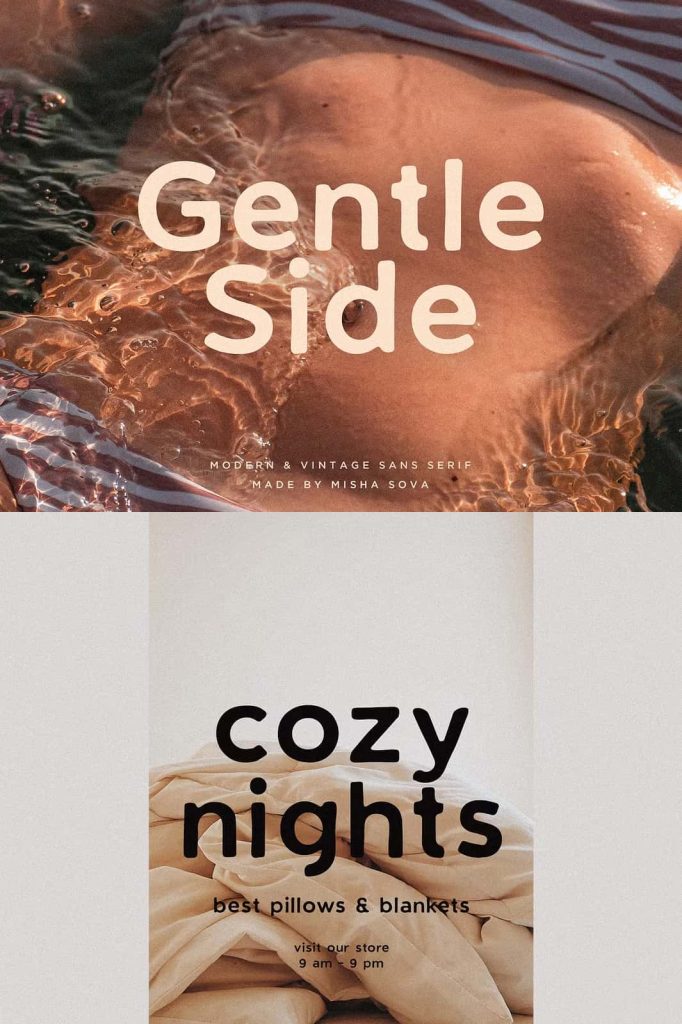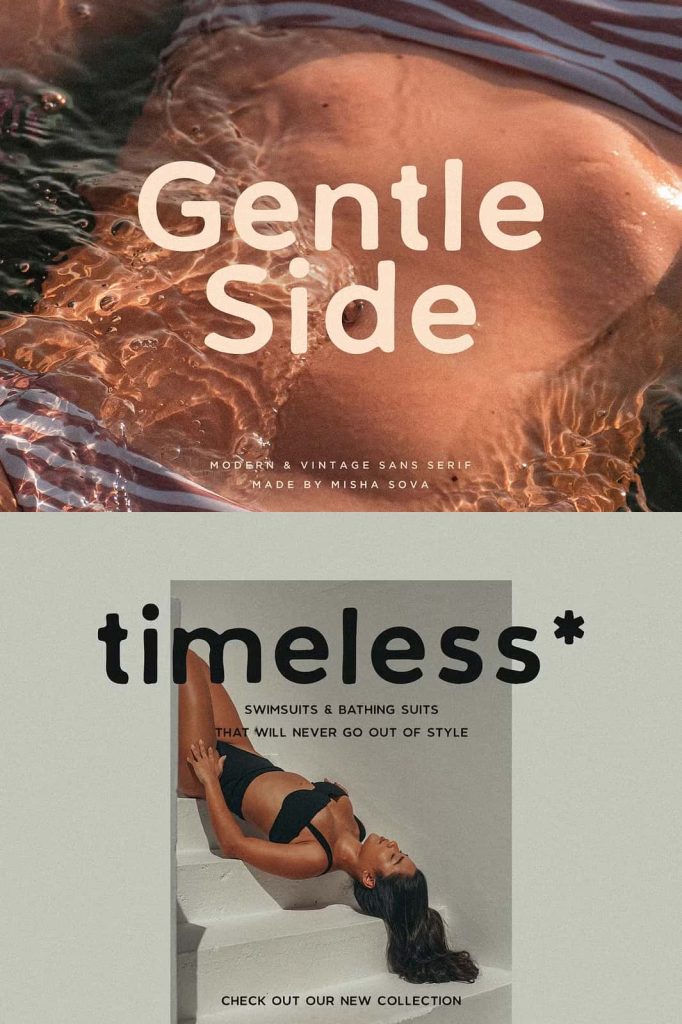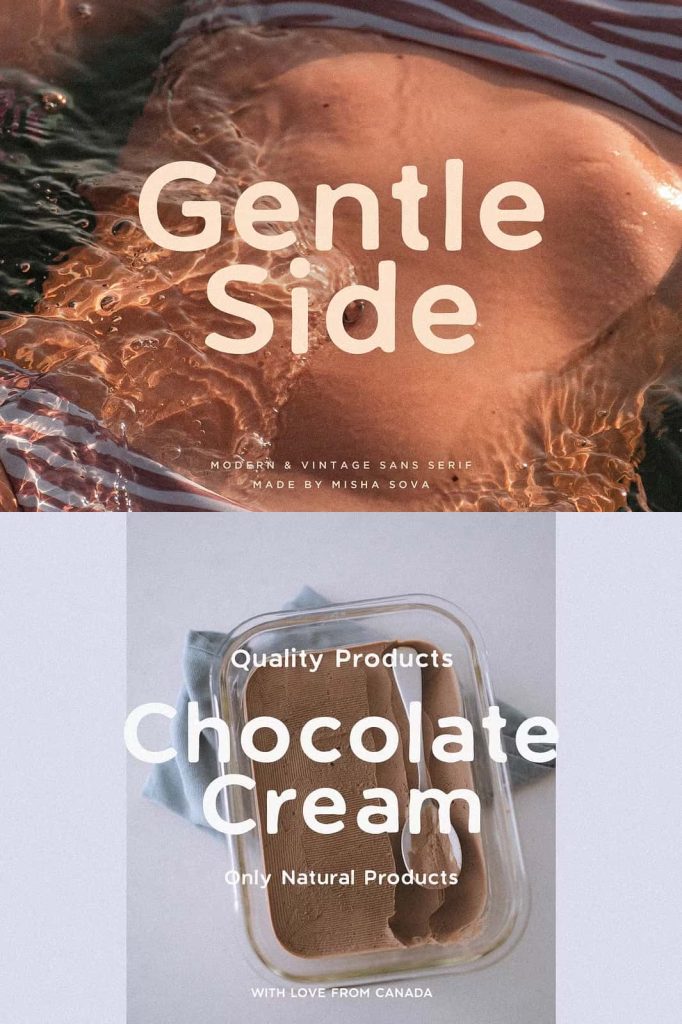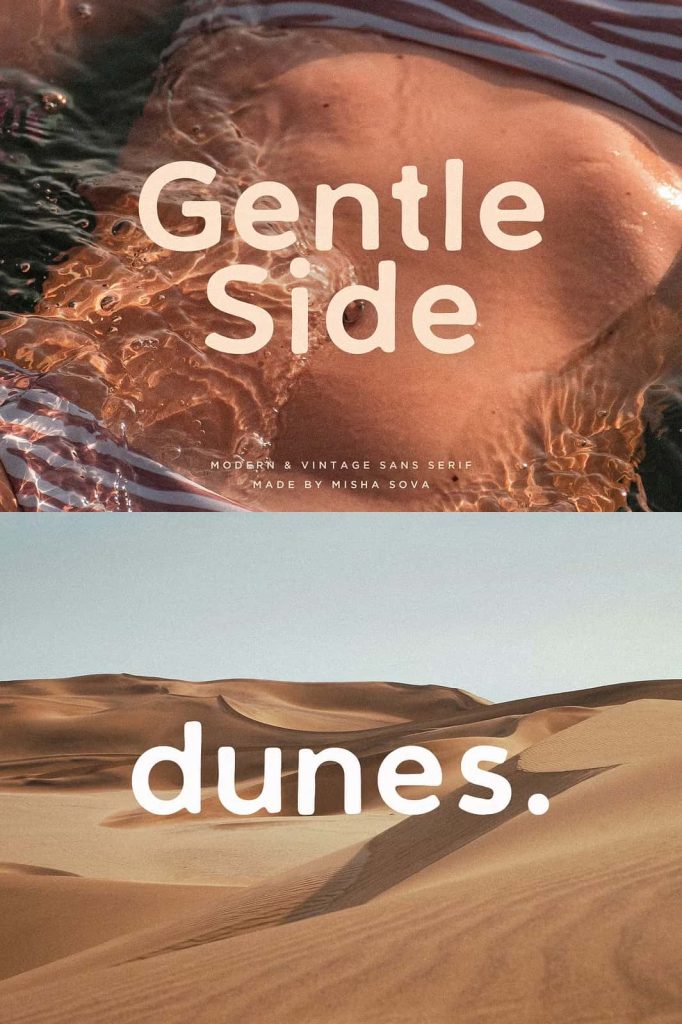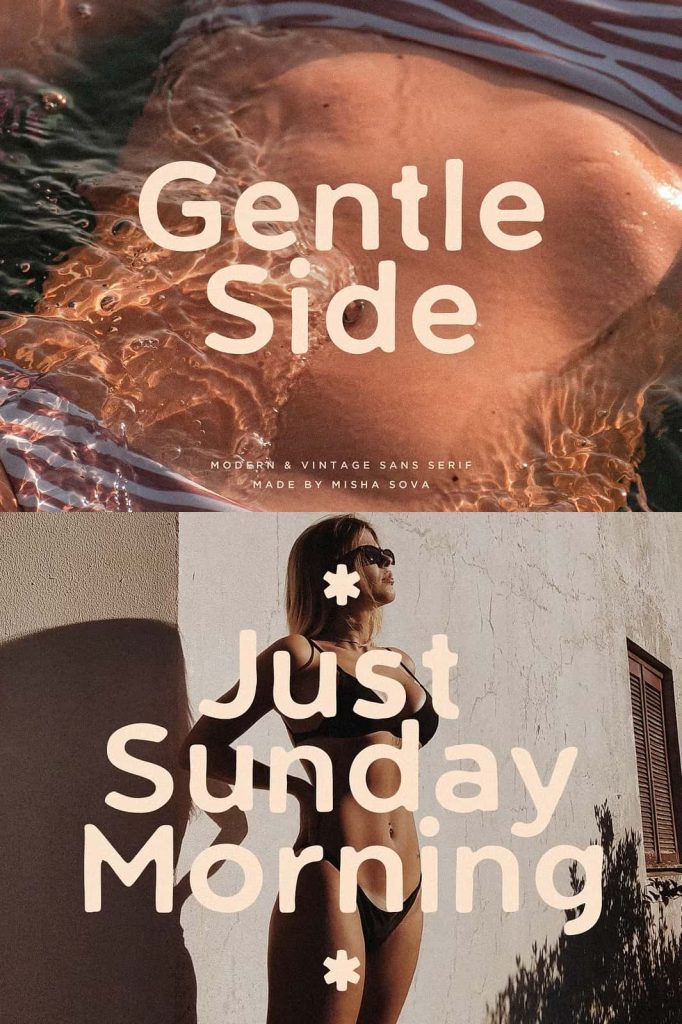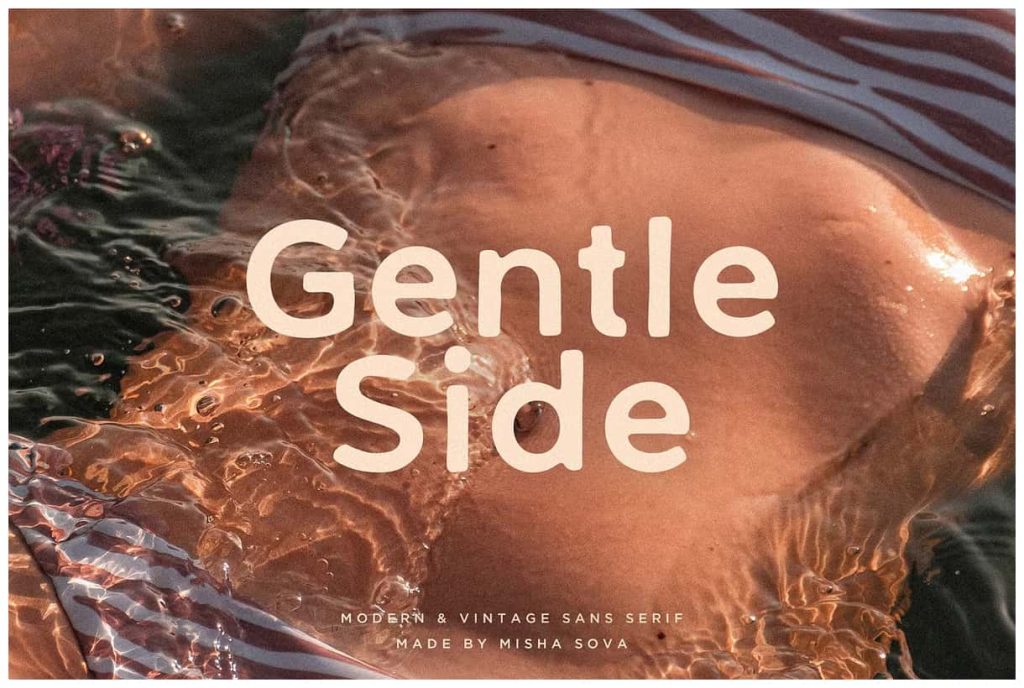
Gentle Side – modern & vintage sansleastedMay 8, 2025Fonts Introducing Gentle Side a modern & vintage sans serif font that stands out with its distinctive shape. Download